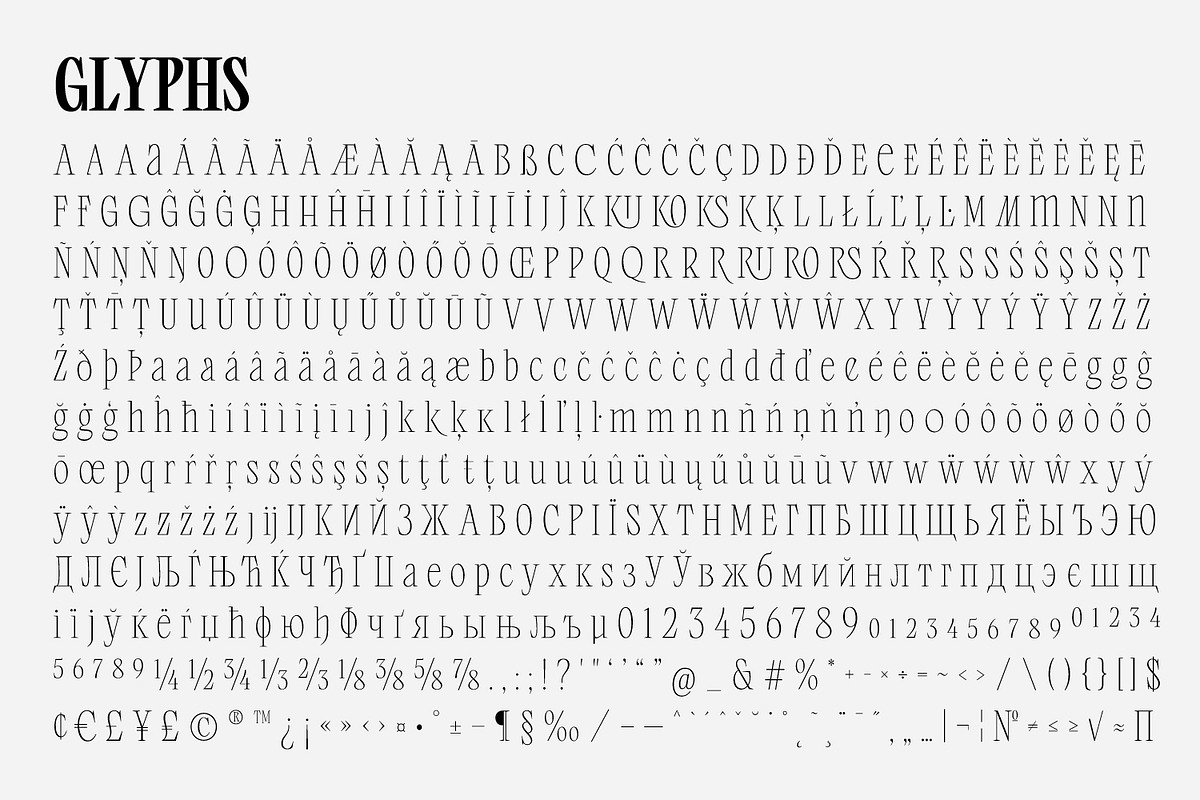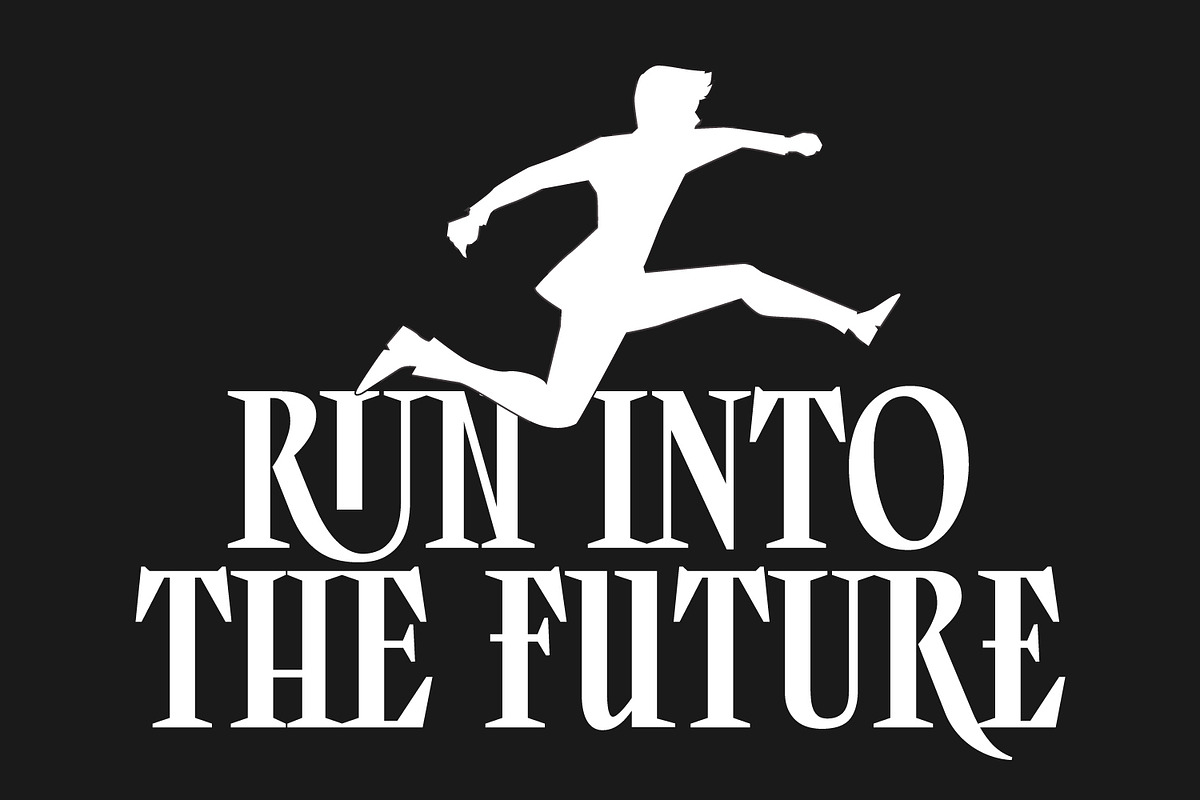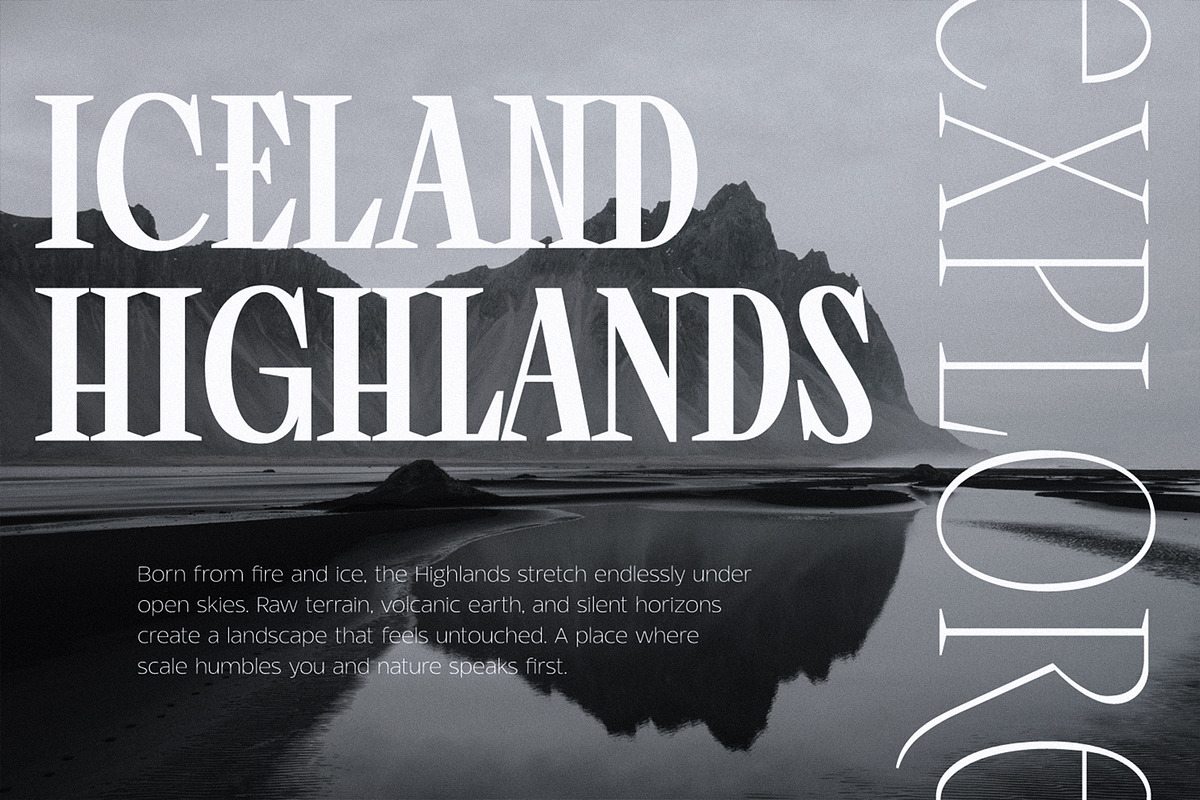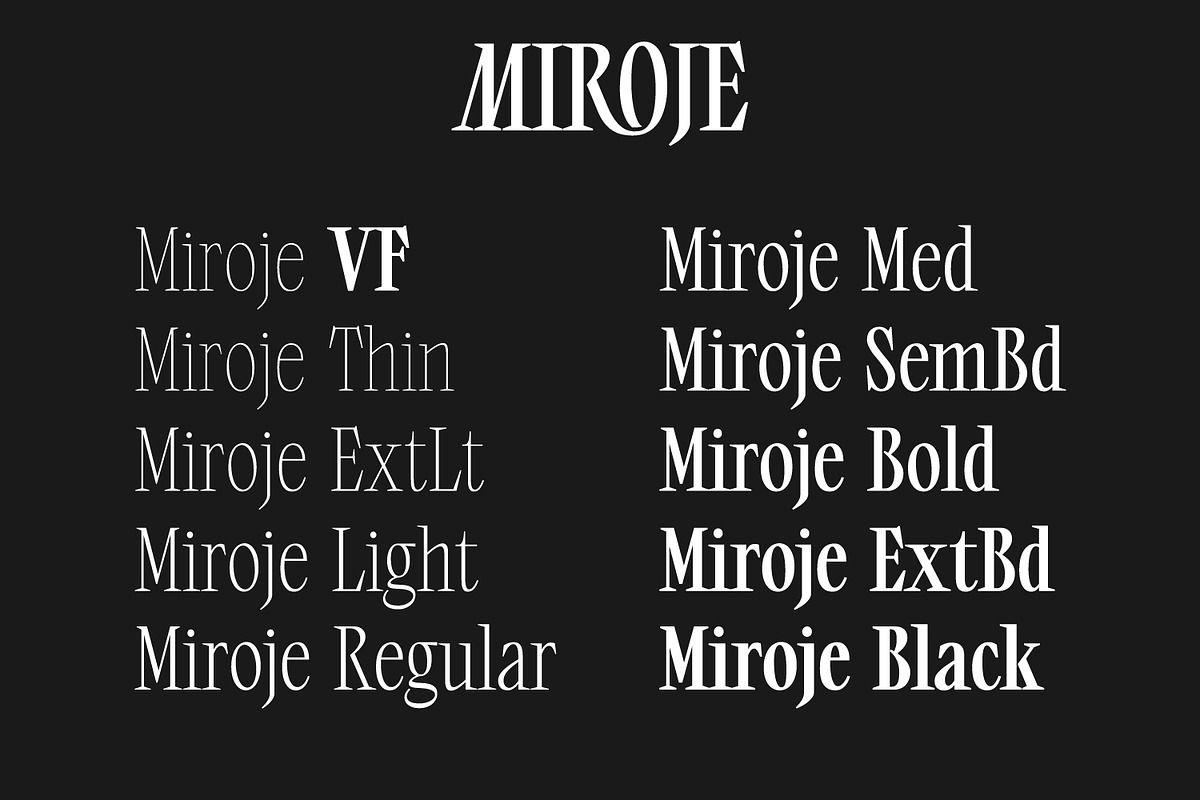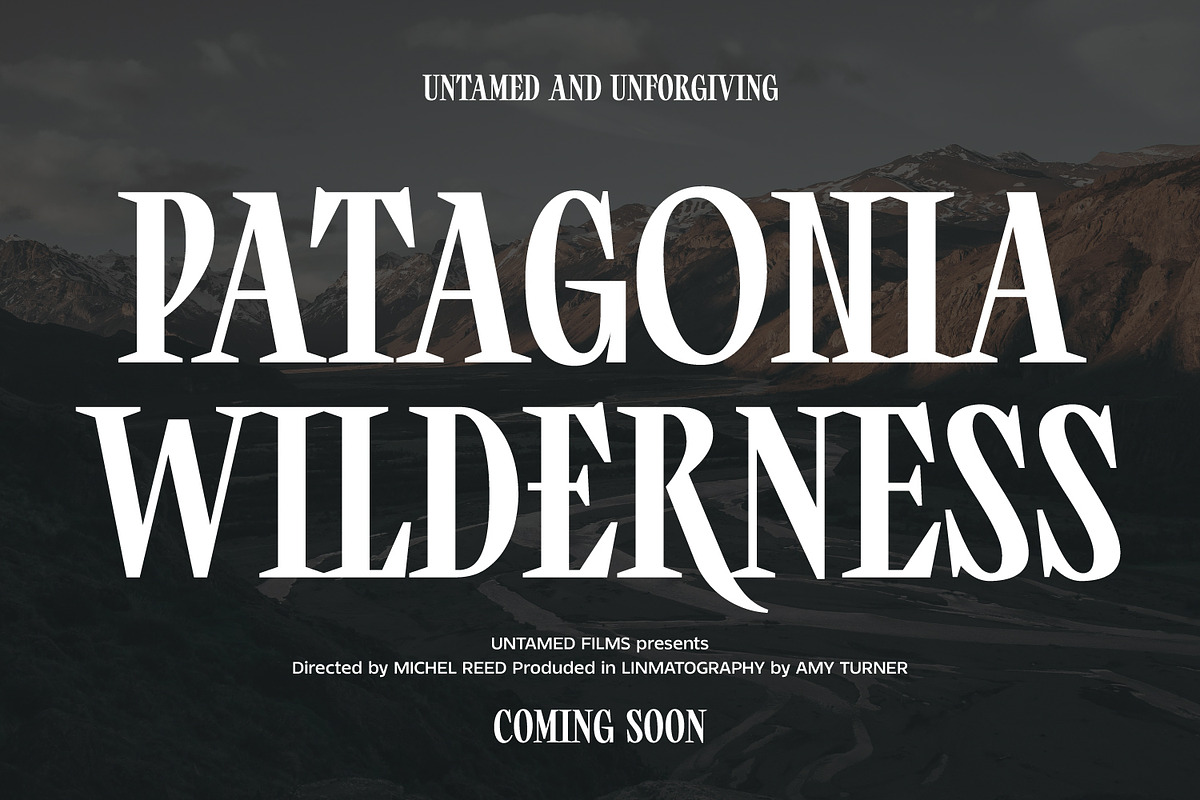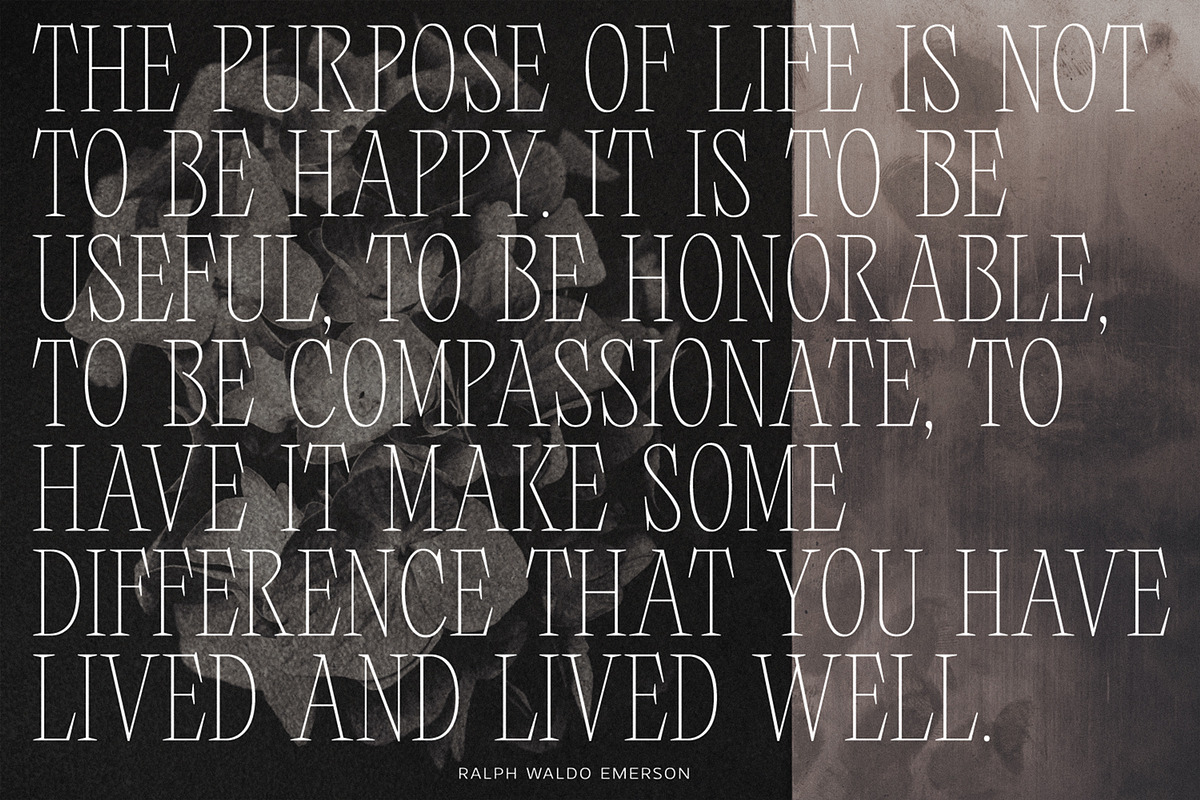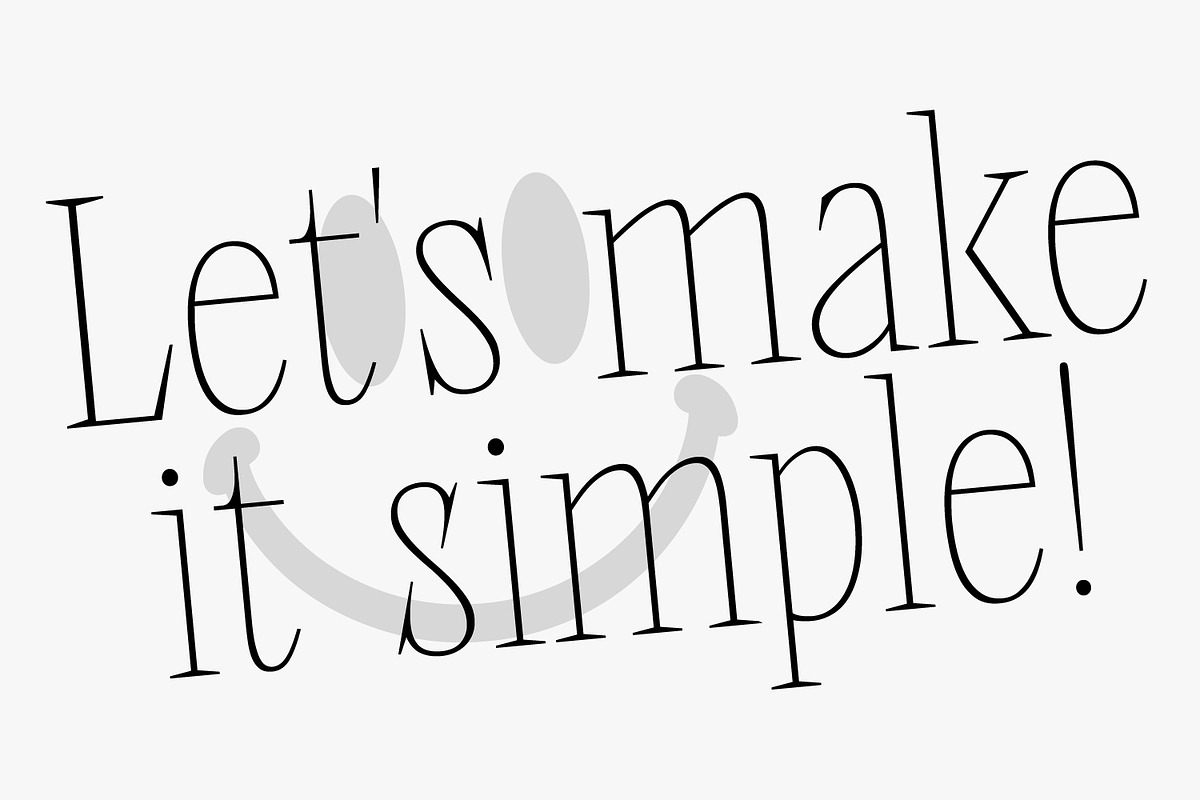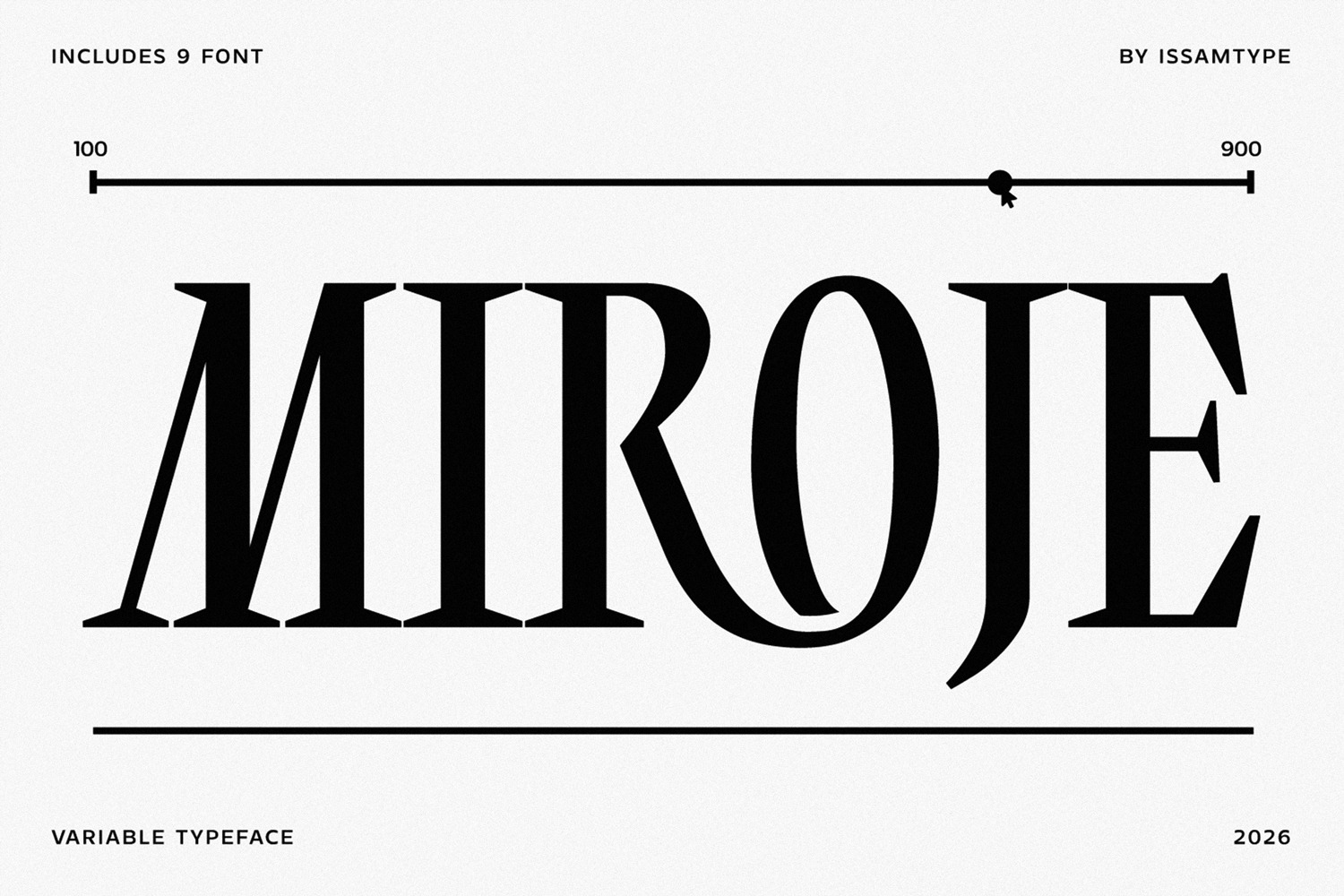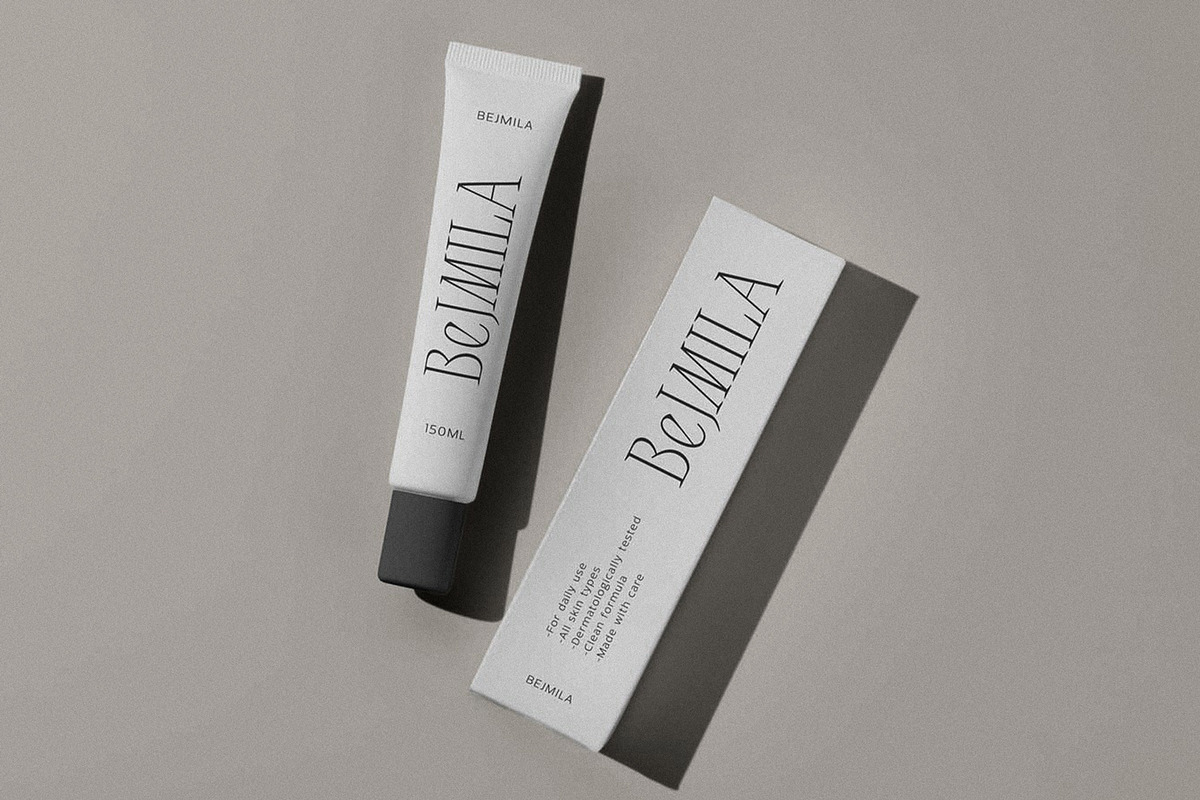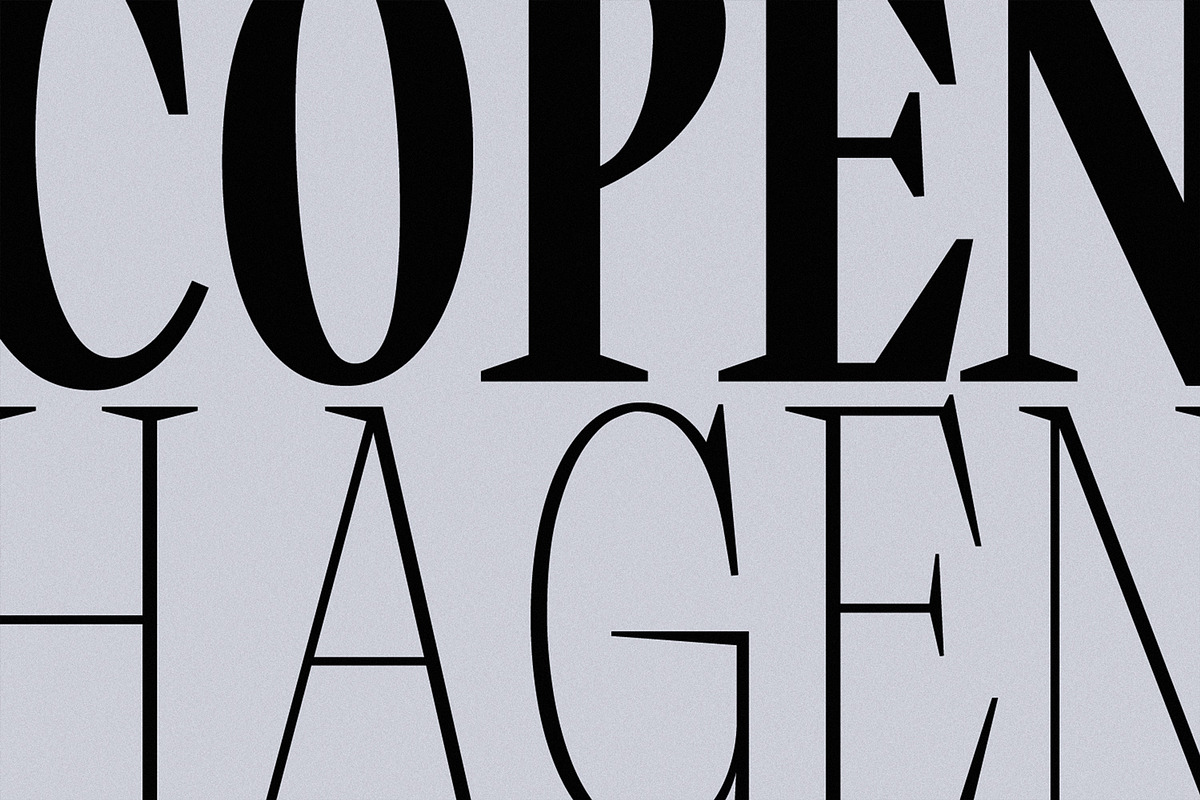
Miroje - Variable Typeface
Miroje – A sophisticated variable serif built on dramatic contrast and razor-sharp elegance. Its refined proportions and distinct character allow it to transition seamlessly from the airiest hairlines to the boldest, most striking display forms. Ideal for luxury branding, high-end editorial, and cinematic projects, Miroje combines dramatic flair with a polished contemporary style.
Variable Font
Full Weight Range: Thin to Black (9 Weights)
Numbers, Punctuation & Symbols
Stylistic Alternates & Ligatures
Multilingual Support ( Latin and Cyrillic)